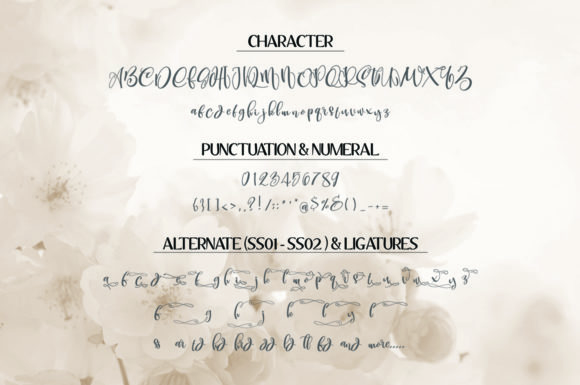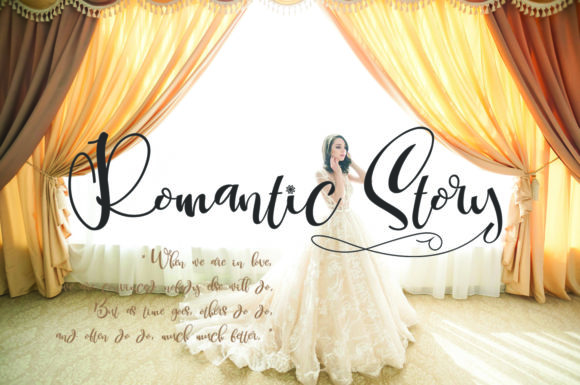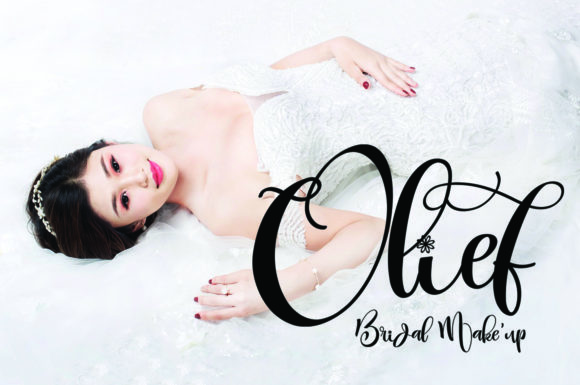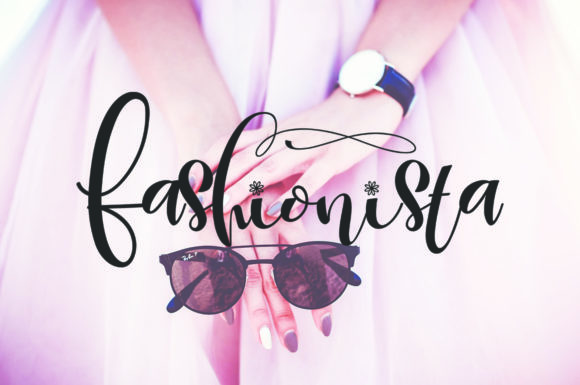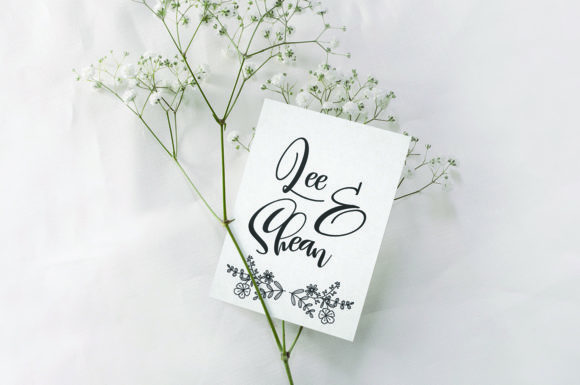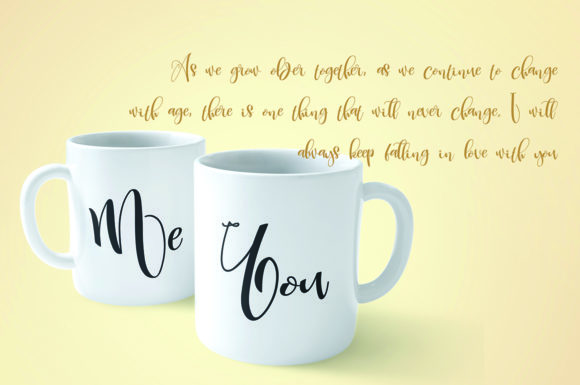
The Timeless Allure of Carolyne Font
Have you ever found yourself lost in the world of fonts, searching for the perfect one to capture the essence of your design? I know I have. There’s something magical about stumbling upon a font that speaks directly to your creative soul, and for me, that font is Carolyne. With its smooth, handwritten script, it’s the perfect blend of elegance and femininity.
Designed to add a touch of sophistication to any design, Carolyne Font is a versatile choice for bridal and wedding designs, name cards, invitations, and more. Its refined style makes it an instant favorite among designers looking to add a sprinkle of elegance to their work.
Carolyne Font Key Features
- Font Family: Carolyne Font is a script font designed for elegant and sophisticated text display.
- Unique Characteristics: Carolyne Font features intricate, cursive script with ornate details, making it ideal for wedding invitations, luxury branding, and high-end design projects.
Designer Review: Carolyne Font
Overall, I think Carolyne Font has a certain charm to it. ✨ The curved lines and flowing shapes give it a soft, elegant look that can be quite appealing. The font’s cursive nature makes it suitable for various creative projects, from invitations to logos.
The font has a range of weights and styles, which is great for designers who want to experiment with different looks. ✨ It’s also fully scalable, making it easy to use for both small and large text.
- ⚠️ Readability can be an issue in certain contexts, particularly at smaller font sizes or in situations where the text is dense. This can lead to eye strain and difficulty reading.
- ⚠️ The font’s cursive nature can make it challenging to use for body text or large blocks of text, as it can become visually overwhelming.
In terms of overall impression, I’d say Carolyne Font is a solid choice for designers looking to add a touch of elegance to their projects. However, it may not be the best option for projects where readability is a top priority.
Getting the Most Out of Carolyne Font
To get the most out of Carolyne Font, use it for:
- Special occasion graphics and designs
- Whimsical and elegant typography
Common use cases for Carolyne Font include:
- Wedding invitations and save-the-dates
- Special occasion graphics, such as birthday and anniversary cards
- Branding and logo design for creative businesses
Lato Font is a sans-serif font that is highly legible and versatile. It is suitable for both headings and body text. Lato Font is a great alternative to Carolyne Font as it has a similar modern feel, but with a more neutral tone. It is also highly customizable and supports a wide range of languages.
Comparison: Lato Font is more versatile and has a wider range of weights, making it a better choice for complex designs. However, Carolyne Font has a more distinctive feel that may be desirable for certain projects.
Avenir Font
Avenir Font is a geometric sans-serif font that is highly legible and modern. It is suitable for headings and titles, and has a strong visual impact. Avenir Font is a good alternative to Carolyne Font as it has a similar sleek and modern feel, but with a more geometric aesthetic.
Comparison: Avenir Font is more geometric and has a stronger visual impact, making it a better choice for projects that require a bold and modern look. However, Carolyne Font has a more subtle feel that may be desirable for certain designs.
Montserrat Font is a sans-serif font that is highly legible and versatile. It is suitable for both headings and body text, and has a strong urban feel. Montserrat Font is a good alternative to Carolyne Font as it has a similar modern feel, but with a more gritty and urban aesthetic.
Yes, Carolyne includes several special features, including ligatures, fractions, and contextual alternates. These features are designed to improve readability and provide a more polished look in digital interfaces. The font family also includes a range of language support, including Latin, Cyrillic, and Greek scripts.